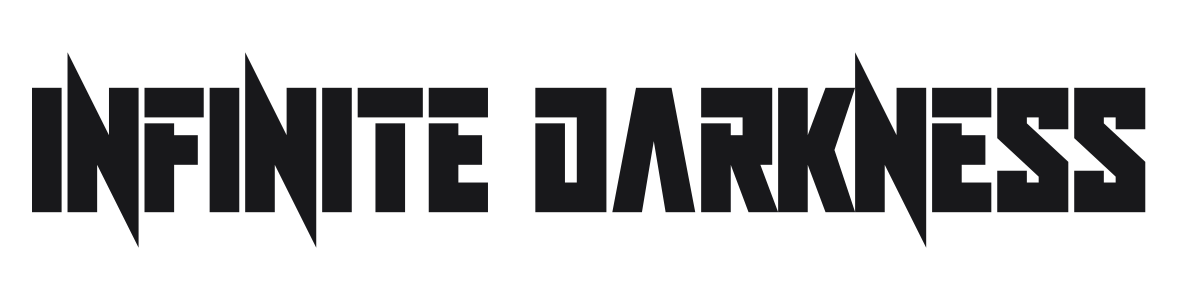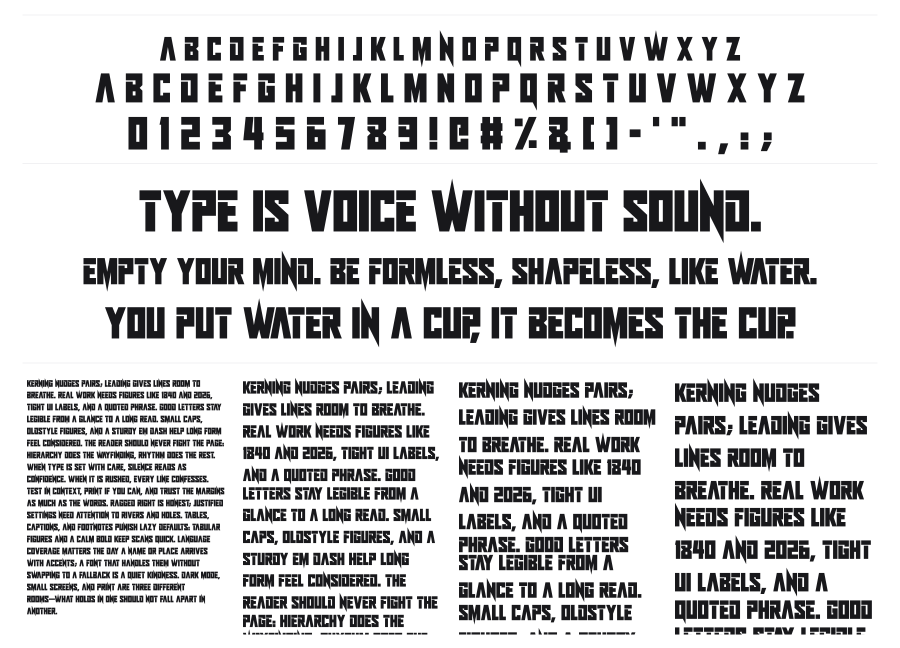
Infinite Darkness
Infinite Darkness is a heavy condensed display face built on sharp angles and jagged cuts that give every character a fractured, metallic edge. Diagonal slices and spike terminals throughout the alphabet amplify the aggressive, dark-genre aesthetic. Strong territory for band logos, horror posters, game titles, and anything that needs to feel dangerous.